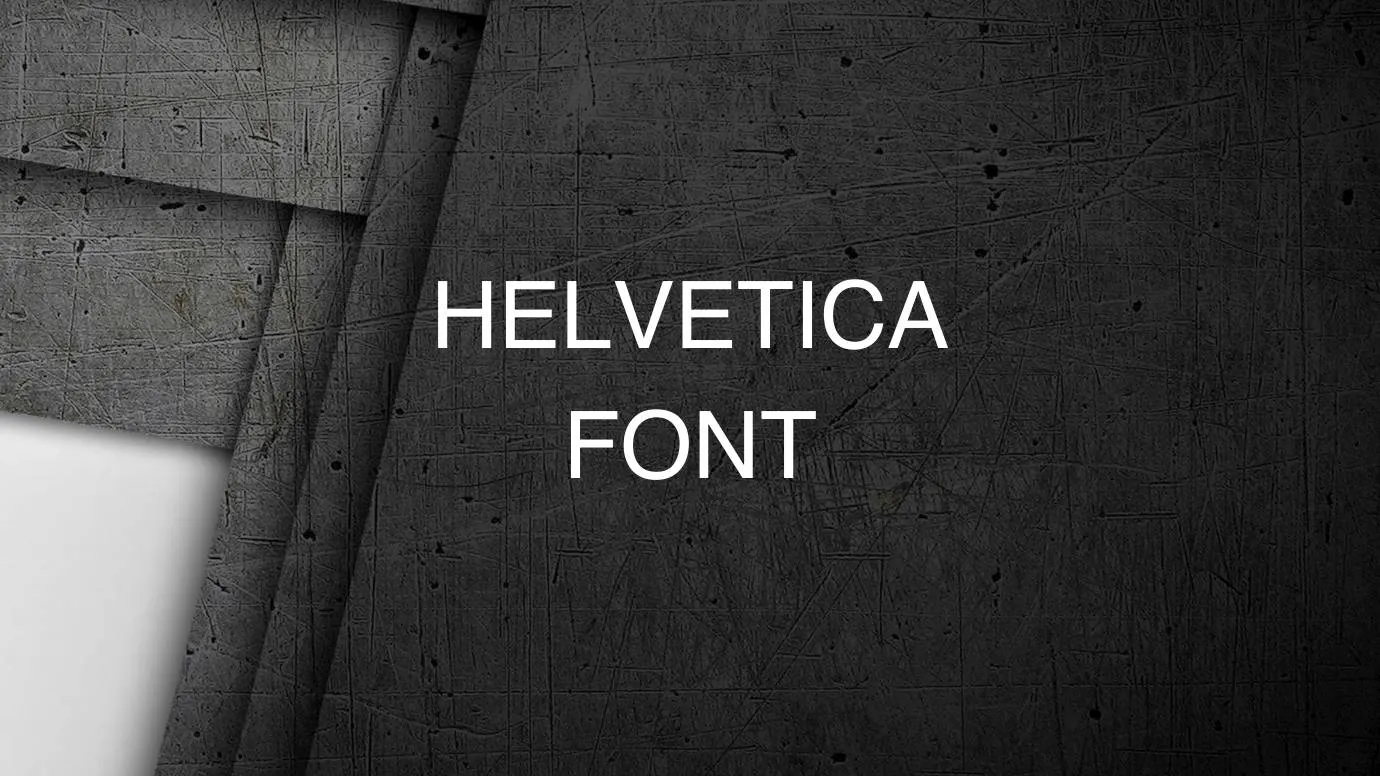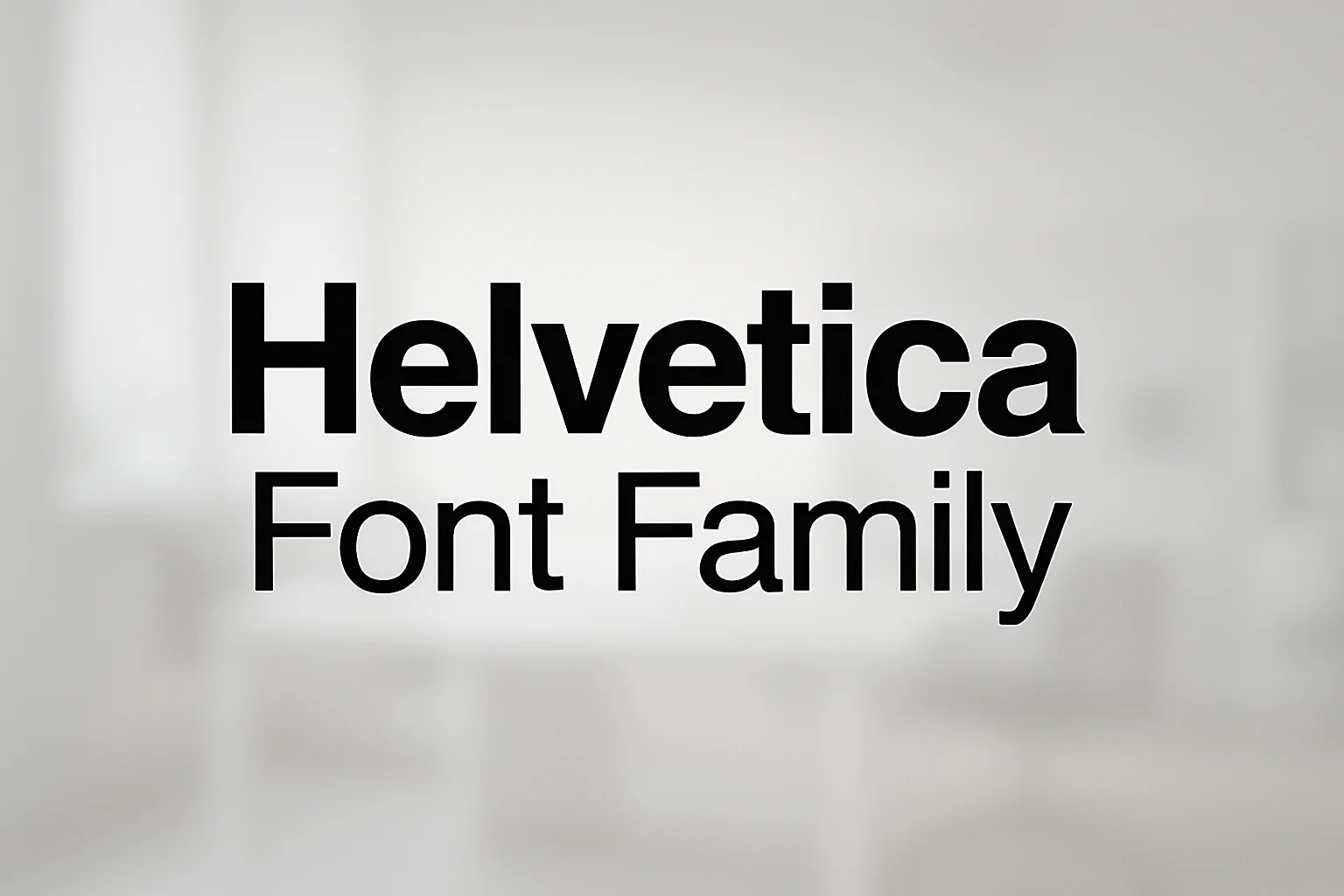
Font Introduction
helvetica Font
Helvetica font family is most widely used font in the world, which is used by thousands of graphic designers around the globe. If you are also graphic or web designer and looking for this font then you have just landed on the right page. As the helvetica font is used and remarkable sans serif typefaces in the designing market that was designed by Max Miedinger and Eduard Hoffmann. It is also known as Neue Haas Grotesk. This is a new neo-grotesque design that has been inspired by the 19th century’s typefaces such as Akzidenz-Grotesk font and some other German and Swiss designs.
This font family comes in a huge 36 styles from light to Light Condensed Oblique  that includes Helvetica Light, BMW Helvetica, Helvetica Rounded, Helvetica Narrow, and many more. You can download this amazing typeface from our website for free but only for personal uses.
Details of Font
NameHelvetica Font
DesignerMax Miedinger, Eduard Hoffmann
FoundryLinotype
StyleSans-serif
Date Released1957
Why Helvetica is a bad font?
Helvetica provides low legibility to designs that’s why it is called bad font and it is known as a bad font for body text due to its closed letterforms.
What is the closest font to Helvetica?
There are lots of fonts that are closed to this typeface but Arial font is the considered closest font to Helvetica.